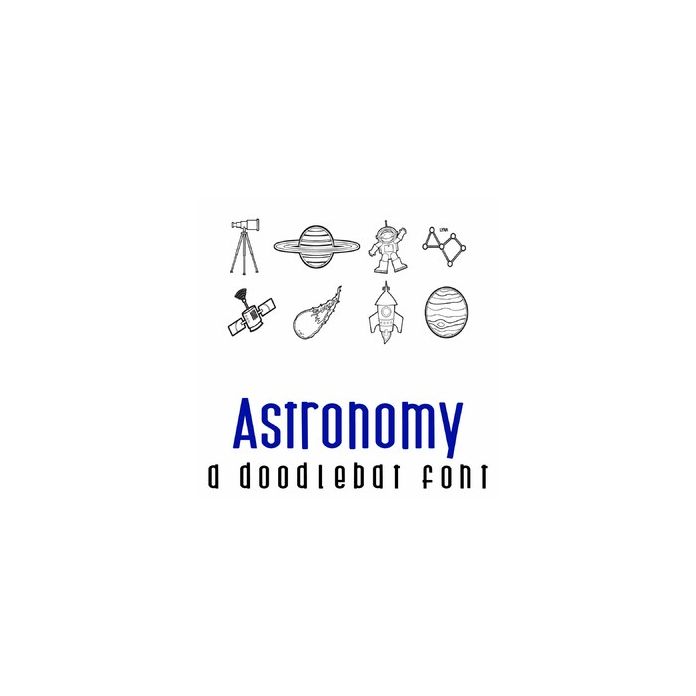
This fun doodlebat font features 26 astronomy themed images perfect for classrooms, school, teachers, cards, crafts, gifts, decor, scrapbook pages, planner stickers and more!